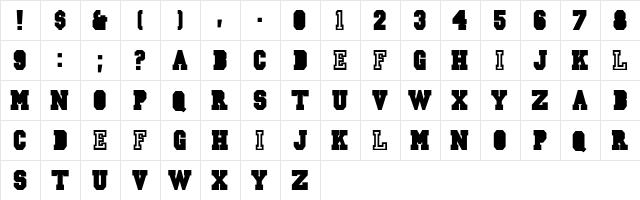
CSD-JERSEY-Norm Regular
Design Context for CSD-JERSEY-Norm Typeface
CSD-JERSEY-Norm has the bold swagger of sports branding: strong, assertive letterforms designed to dominate headlines and jerseys alike.
Built for sports team identities, athletic apparel, event posters, and high-energy promotional material.
Pro Tip: CSD-JERSEY-Norm thrives on contrast — try it large, bold, and tight against a clean background for maximum visual impact.